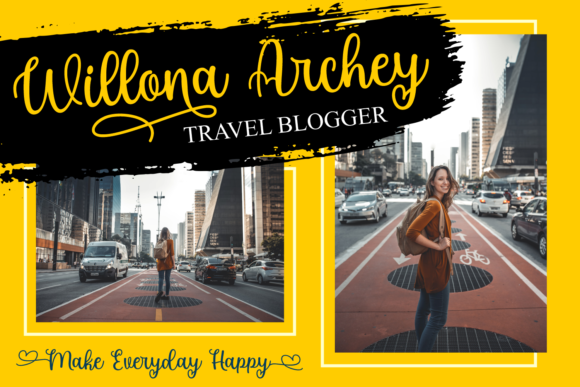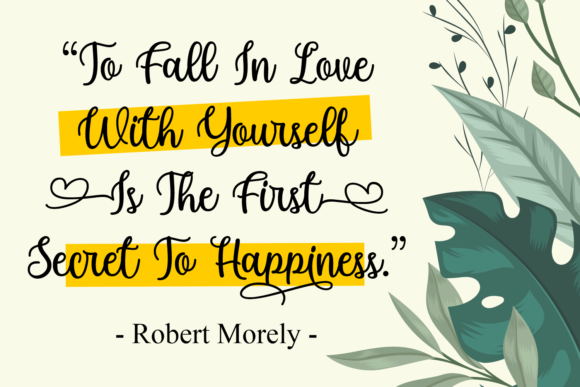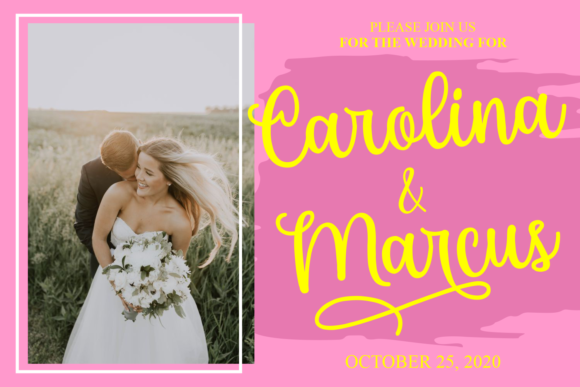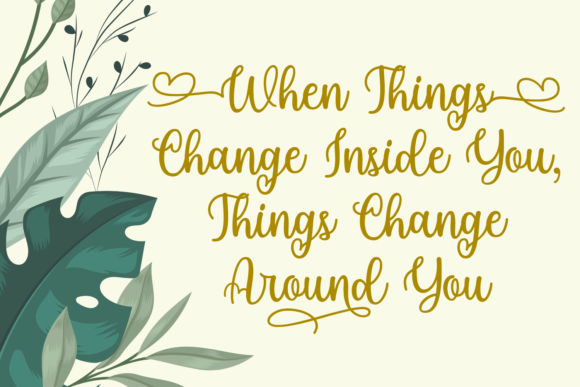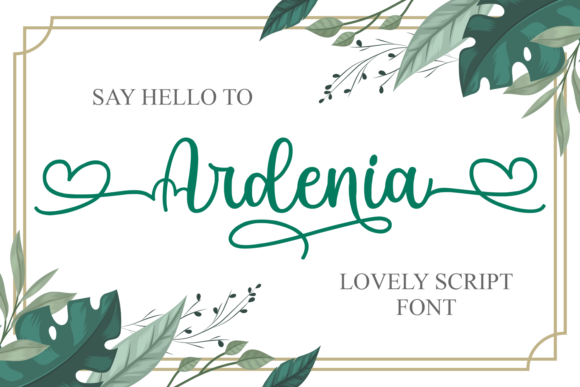
The Elegance of Ardenia Font: A Designer’s Delight
I’ll never forget the time I was working on a wedding invitation project, and my client asked for a font that would make their special day feel like a fairytale. I scoured the internet, tried countless fonts, but nothing seemed quite right. That was until I stumbled upon Ardenia Font. Its elegant, flowing lines and beautiful glyphs instantly captured the essence of what I was looking for. In this article, I’ll share my experience with Ardenia Font, its features, and how to make the most of it in your designs.
An Honest Review of Ardenia Font
- ✨ Elegant and flowing lines that add a touch of sophistication to any design
- ✅ Stunning glyphs and alternates that offer endless creative possibilities
- ⚡️ Perfect for wedding invitations, thank you cards, quotes, greeting cards, logos, and business cards
- 🌈 Features a varying baseline, smooth lines, and gorgeous glyphs that make it stand out
While Ardenia Font is a beautiful addition to any design, there are a few things to keep in mind:
- 🤔 Some users may find the font a bit challenging to read in large blocks of text, so it’s best used for headings or short paragraphs.
- ⚠️ The font’s elegant lines and curves can be a bit finicky when it comes to kerning and spacing, so be sure to adjust accordingly.
A Practical Guide to Using Ardenia Font
The Backstory of Ardenia Font
Ardenia Font was designed with the intention of creating a beautiful, elegant script font that would evoke the feeling of luxury and sophistication. The designer wanted to create a font that would be perfect for special occasions, such as weddings and events, but also versatile enough for everyday use.
Q: Is Ardenia Font suitable for body text?
A: While Ardenia Font is beautiful, it’s best used for headings or short paragraphs. Its elegant lines and curves can be a bit challenging to read in large blocks of text.